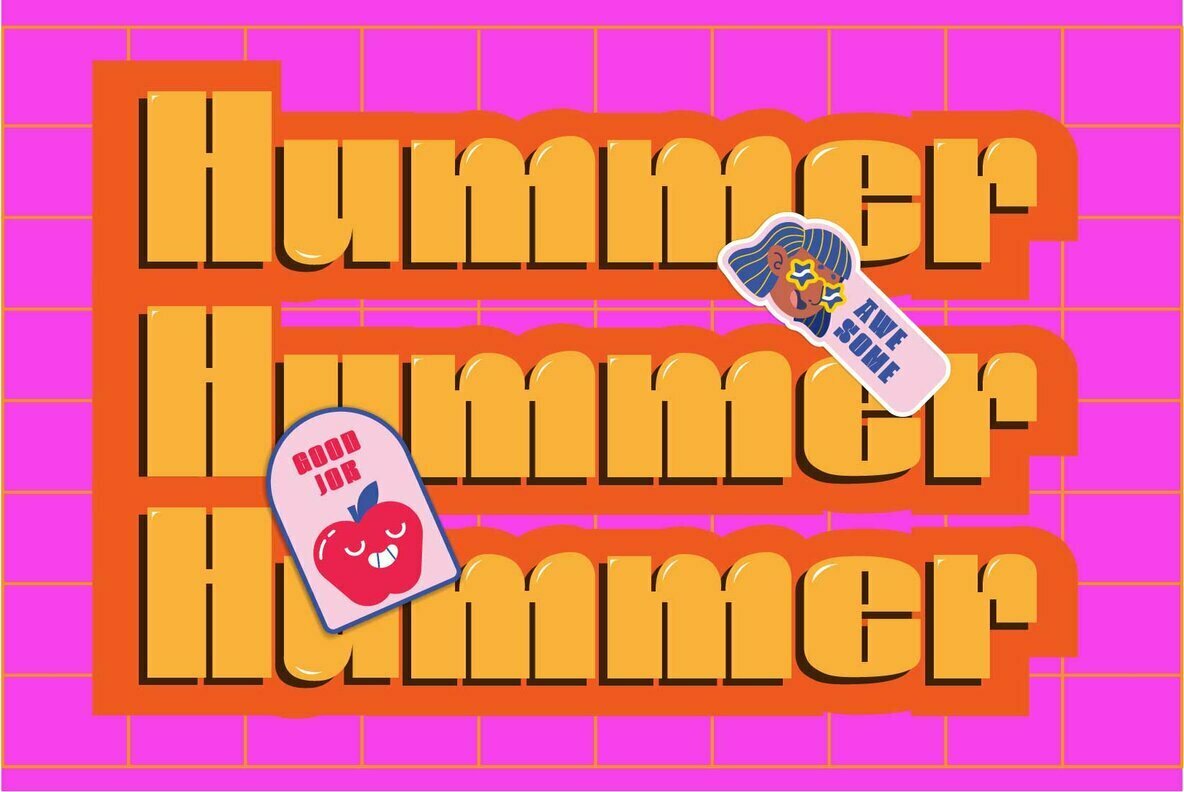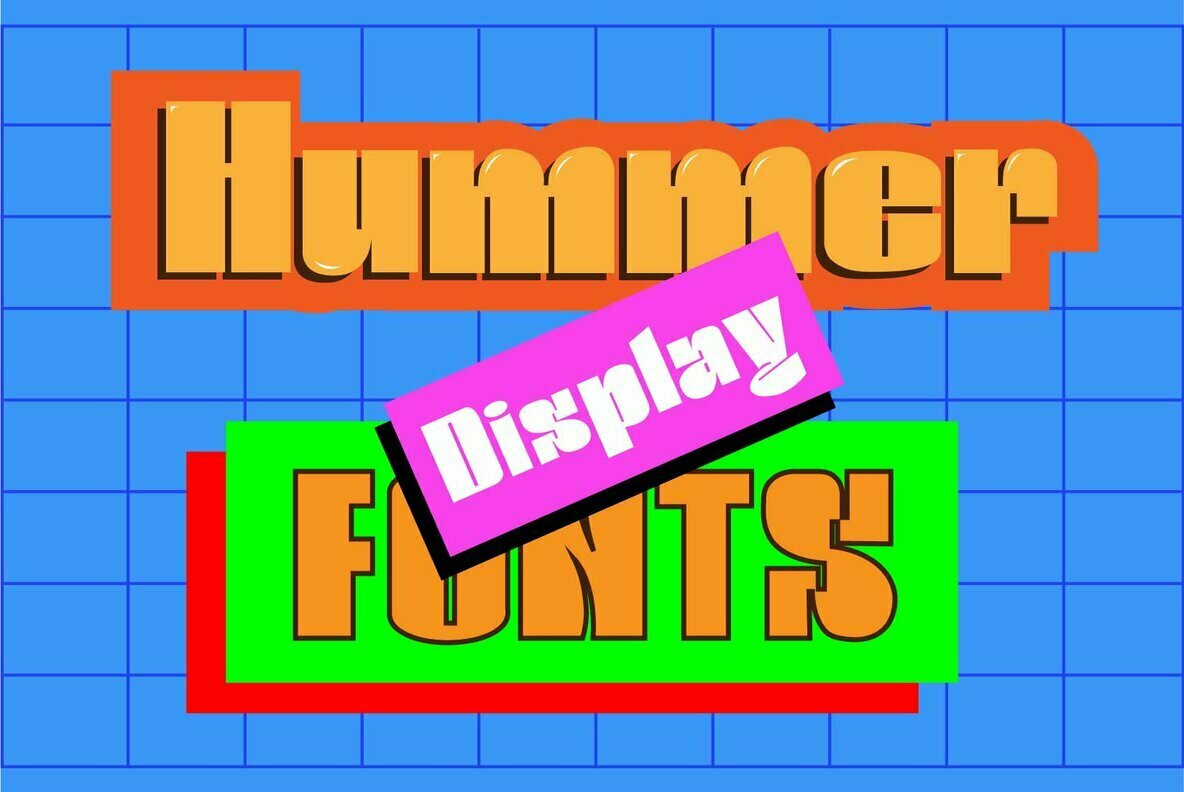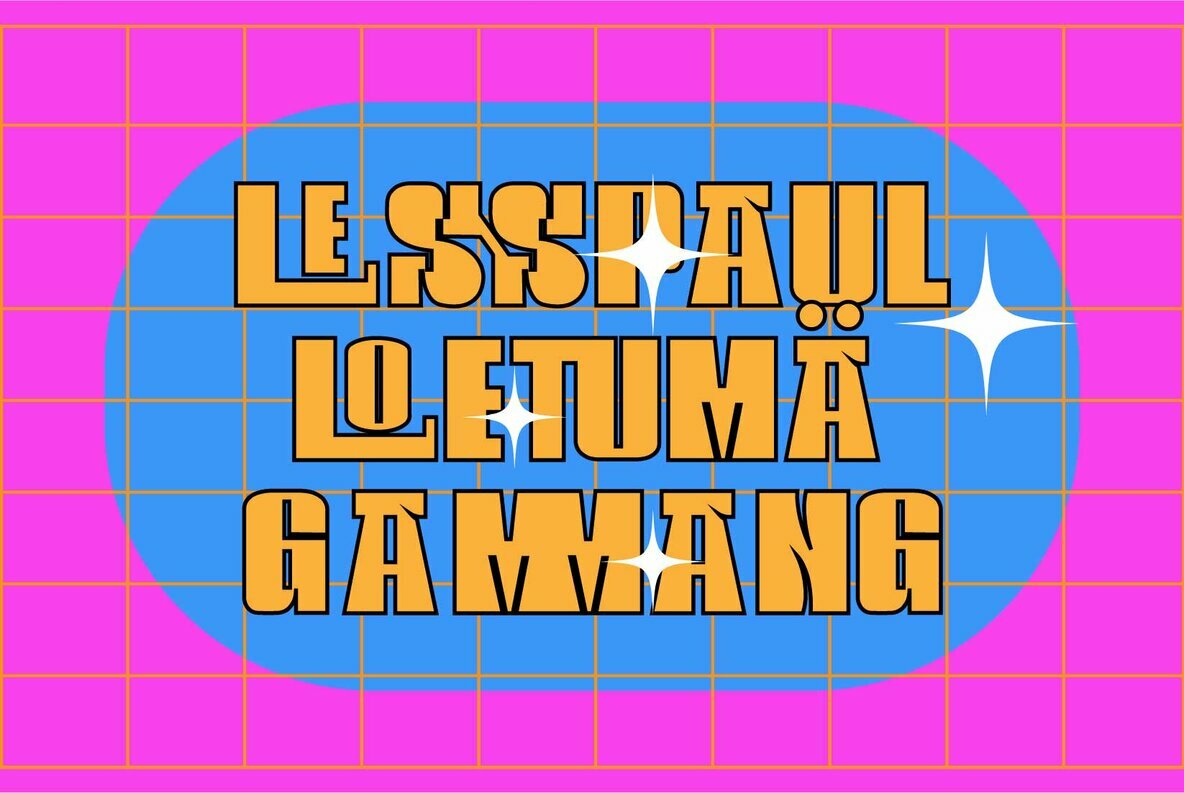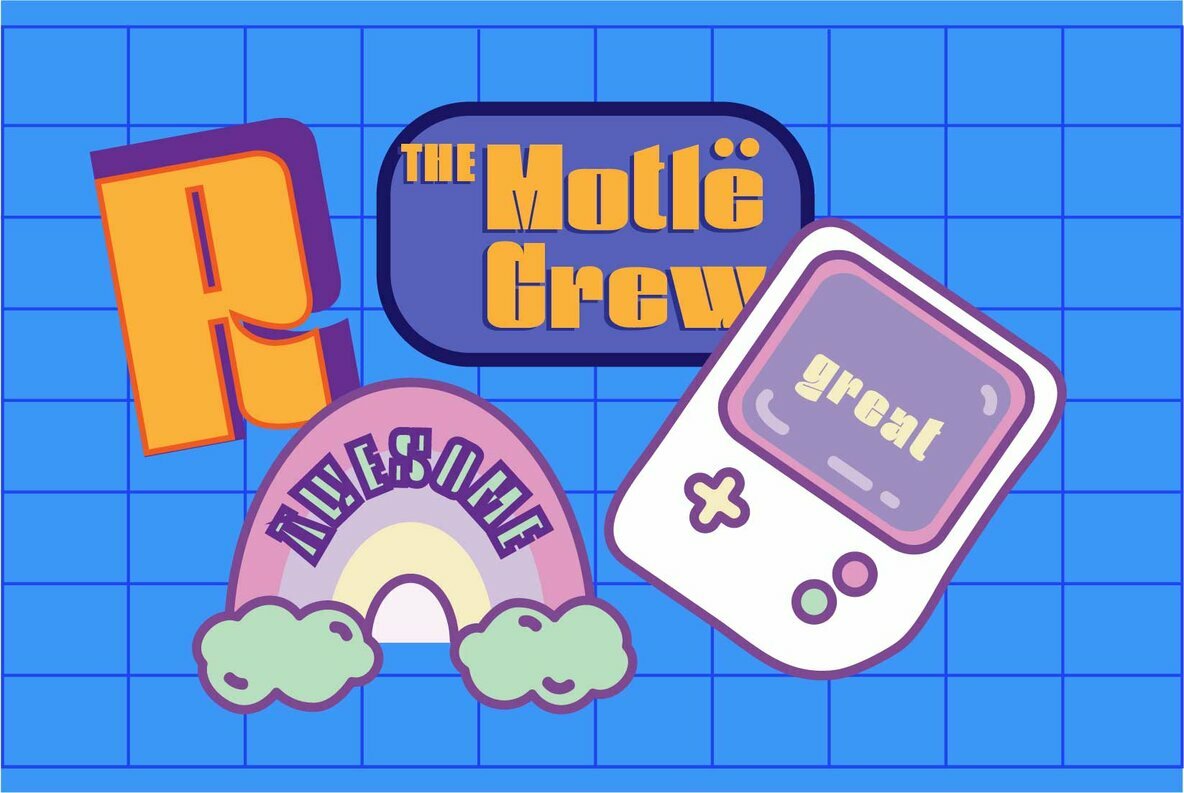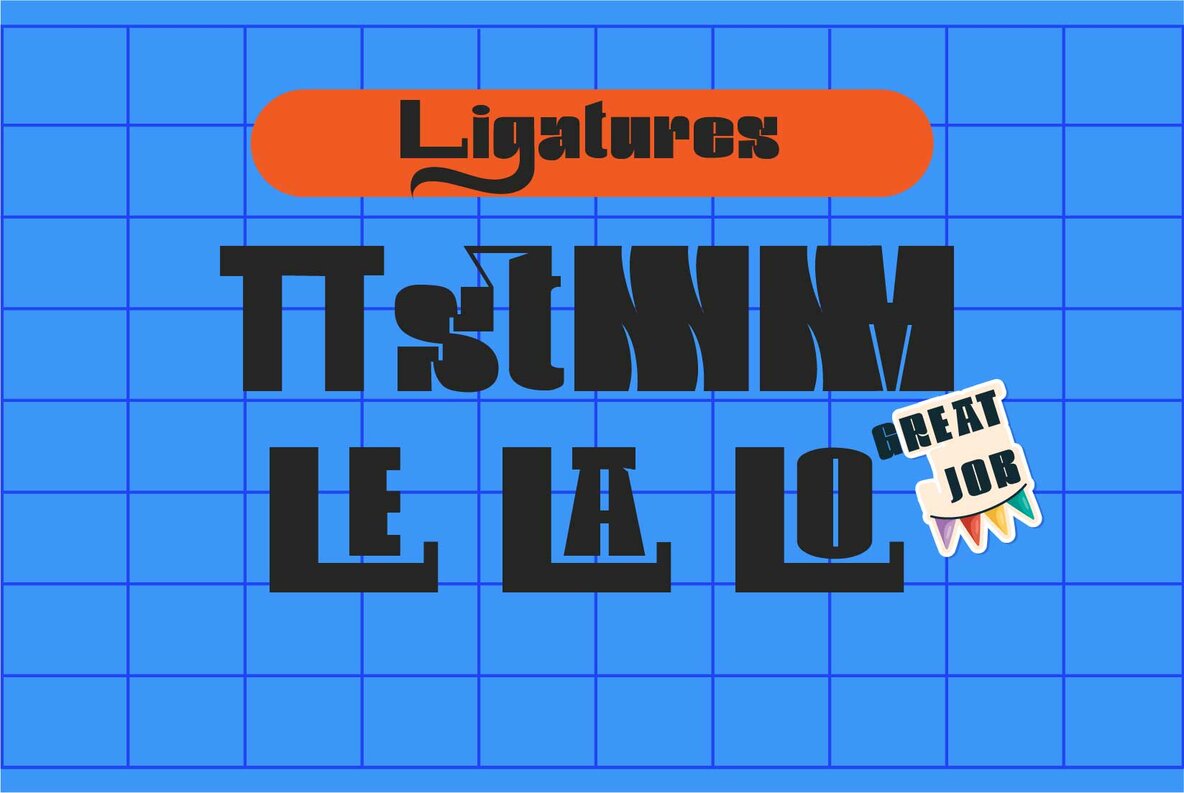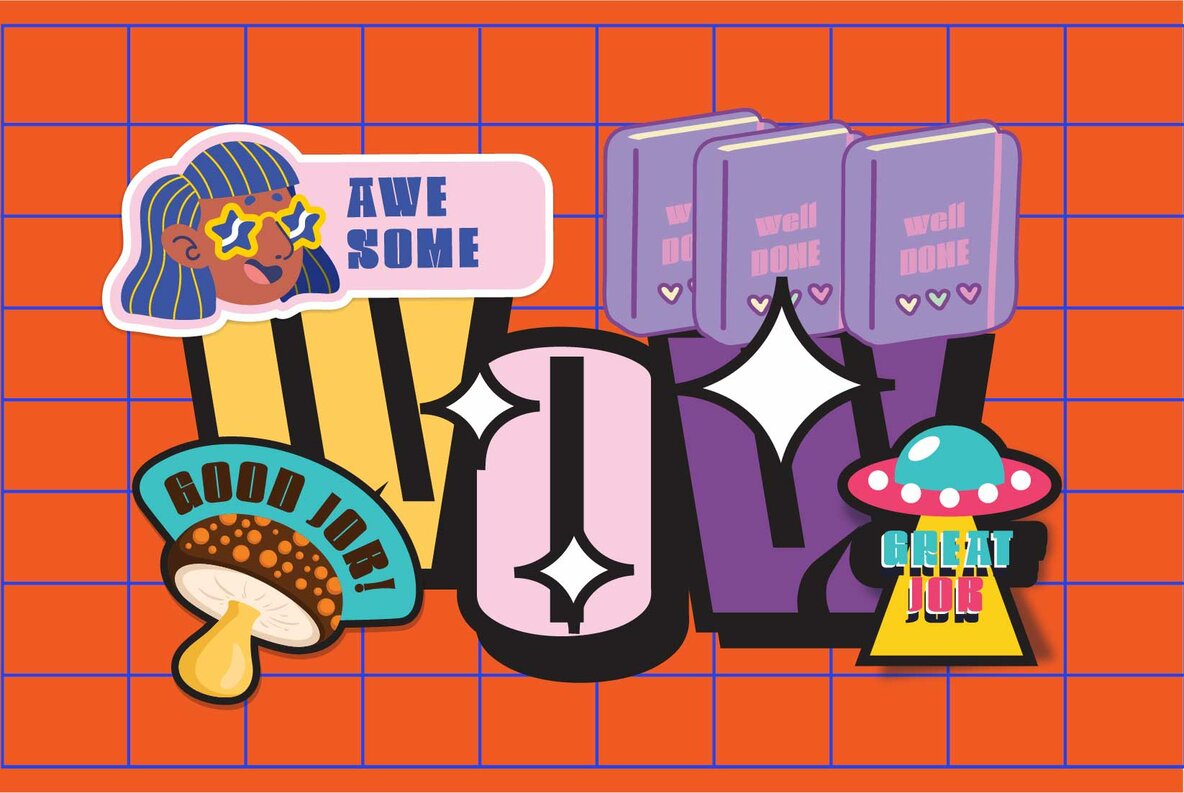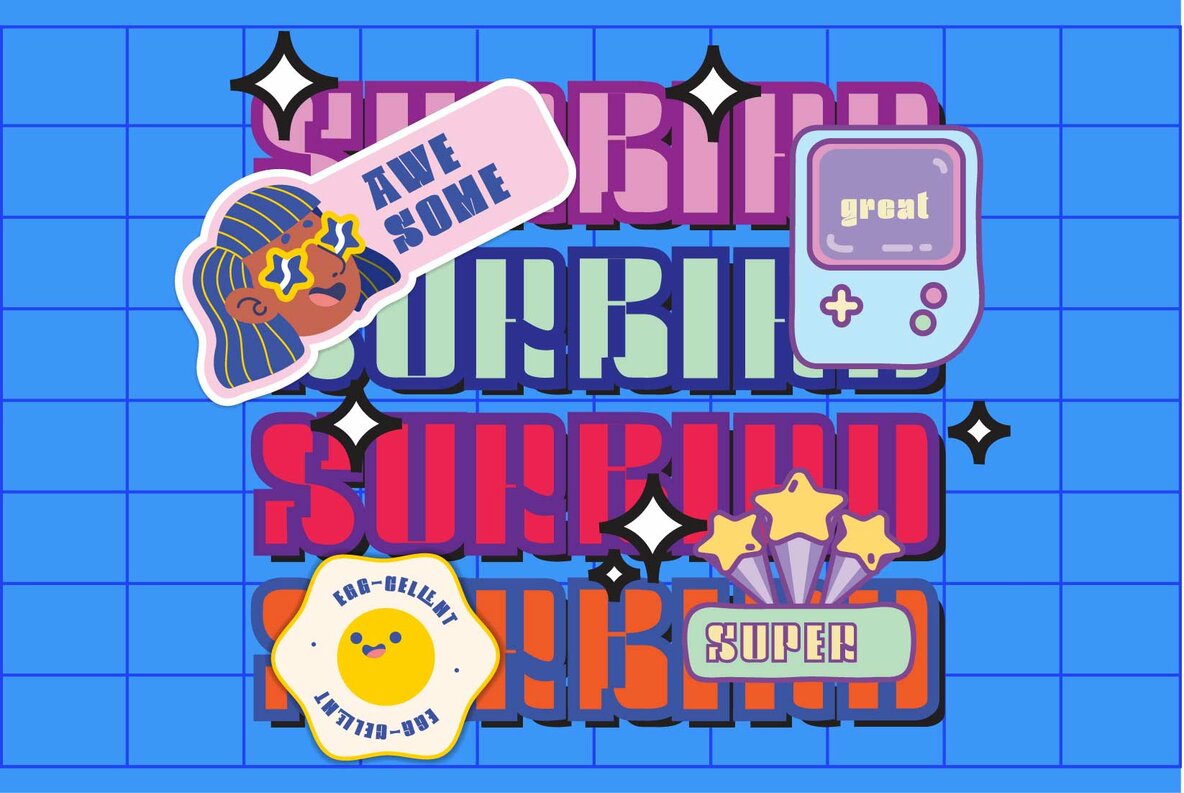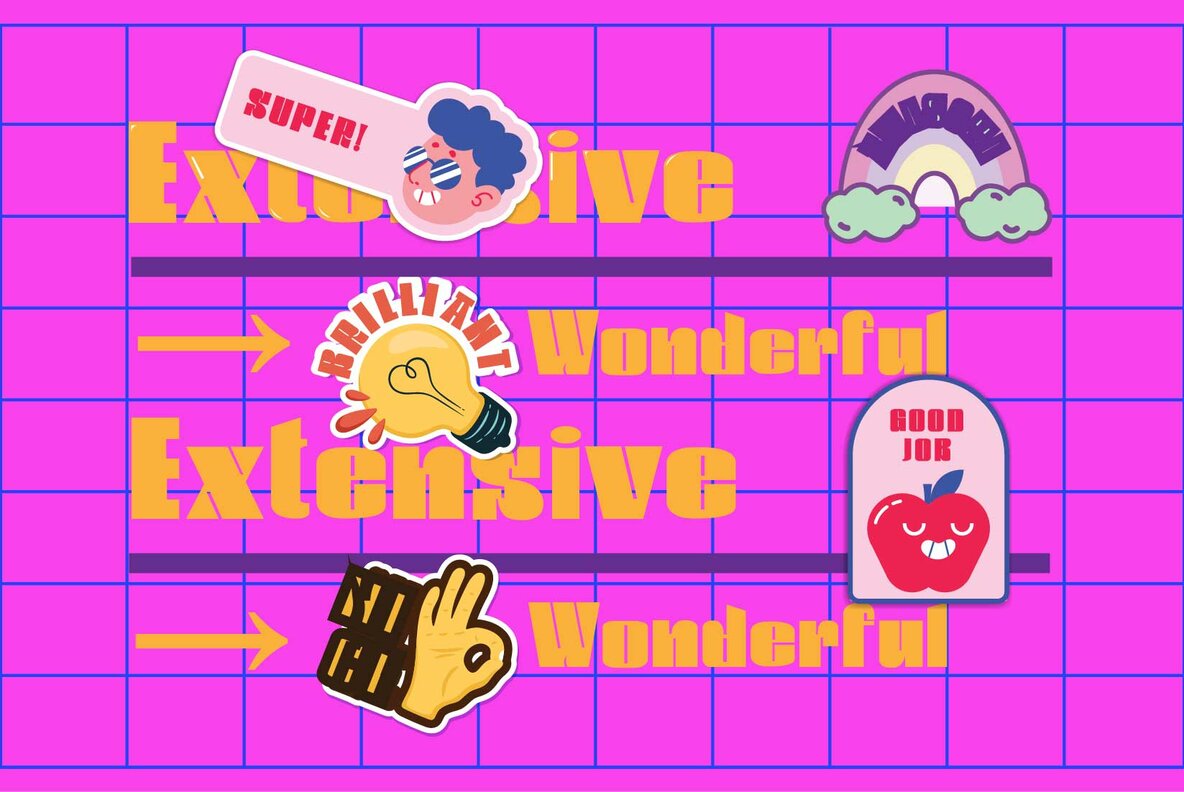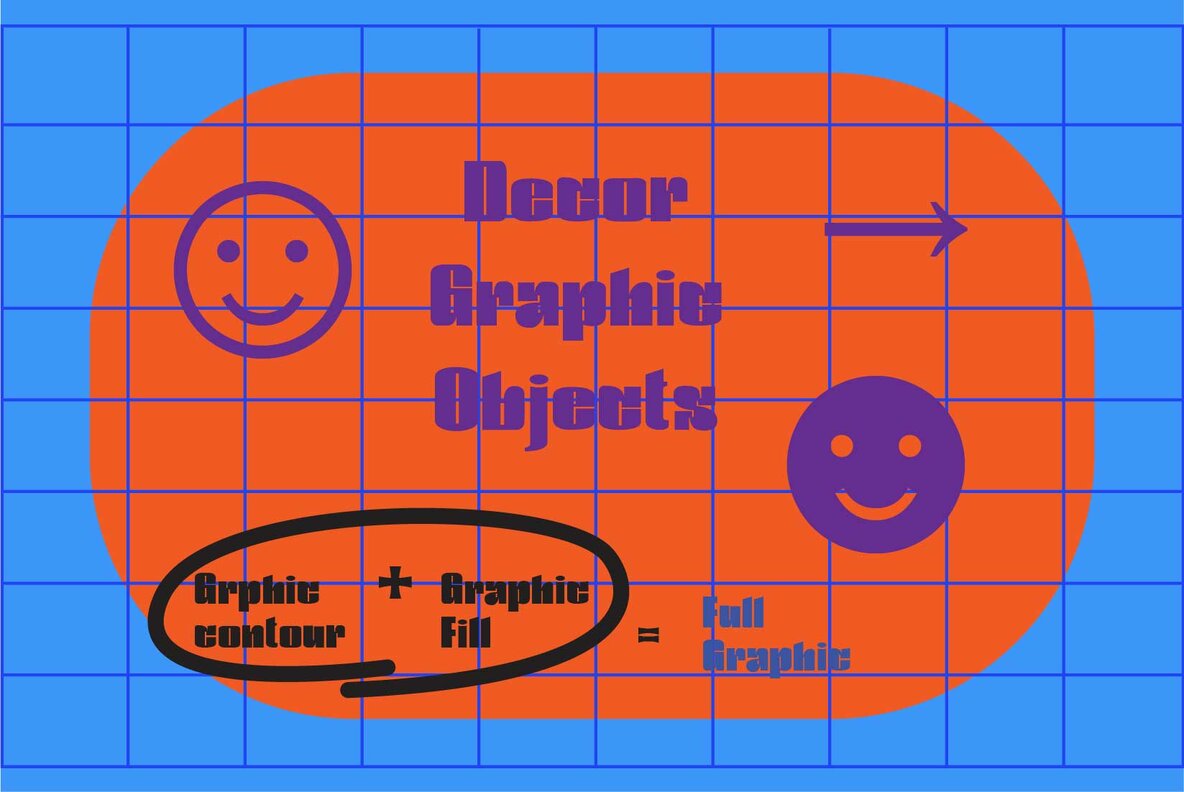
Hummer Font
Hummer Regular
The Hummer font offers a vivacious touch to any design with its cartoon-inspired style. Perfect for projects that aim to communicate a fun, approachable vibe, this display font provides a delightful visual intrigue without sacrificing legibility.Hummer: Playful Display Typography